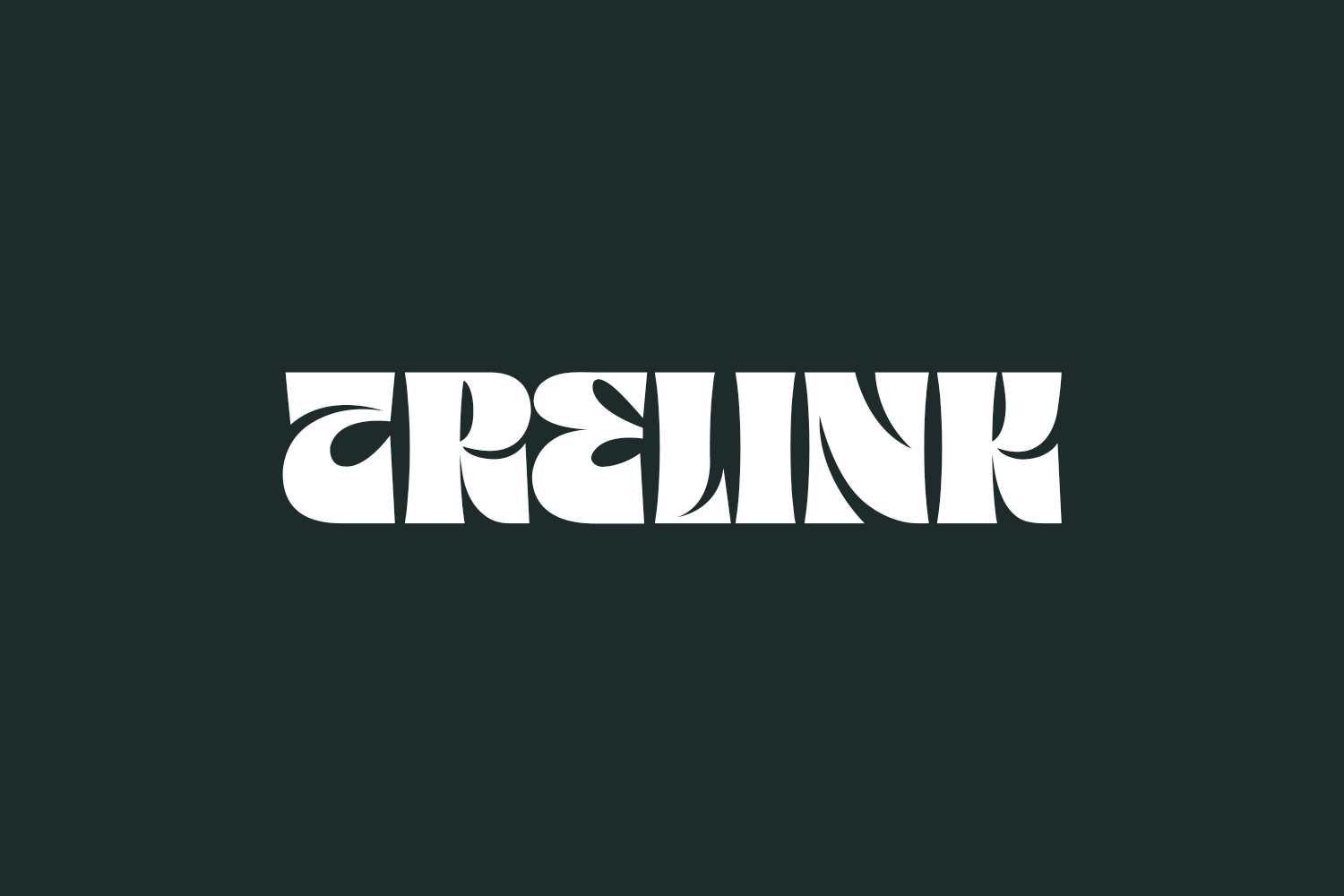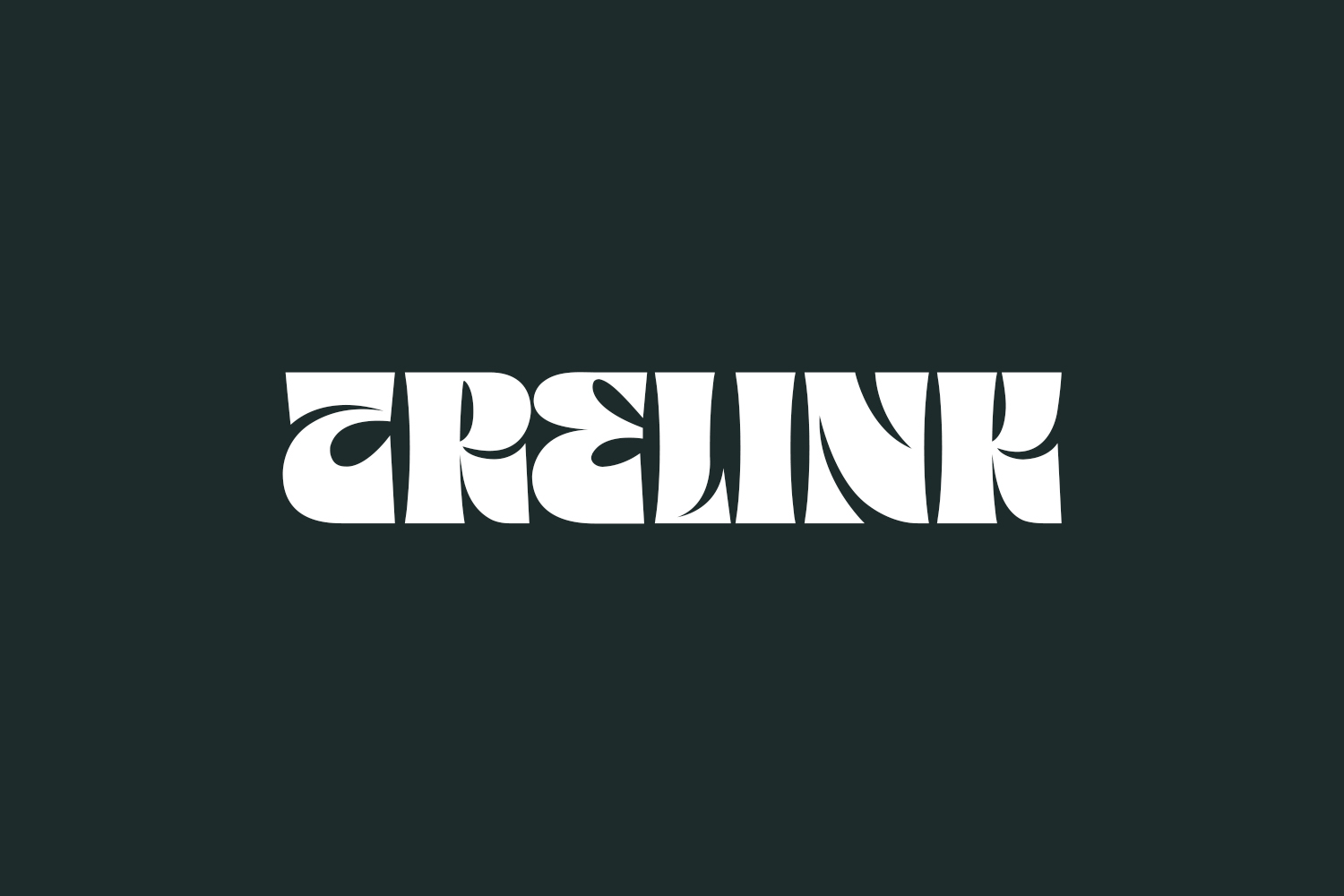
Discover a timeless and sophisticated serif typeface with a distinctive modern twist, boasting a unique style and contemporary appeal all its own. Trelink Free Font is a versatile typeface that is an impeccable choice for crafting elegant and luxurious logos, designing captivating book or movie titles, establishing a chic fashion brand, enhancing magazine layouts, elevating clothing brands, adding flair to lettering projects, creating memorable quotes, and so much more. Unlock its potential for your creative endeavors today. Trelink Free Font is free for personal use only. Please purchase the full version for commercial use.